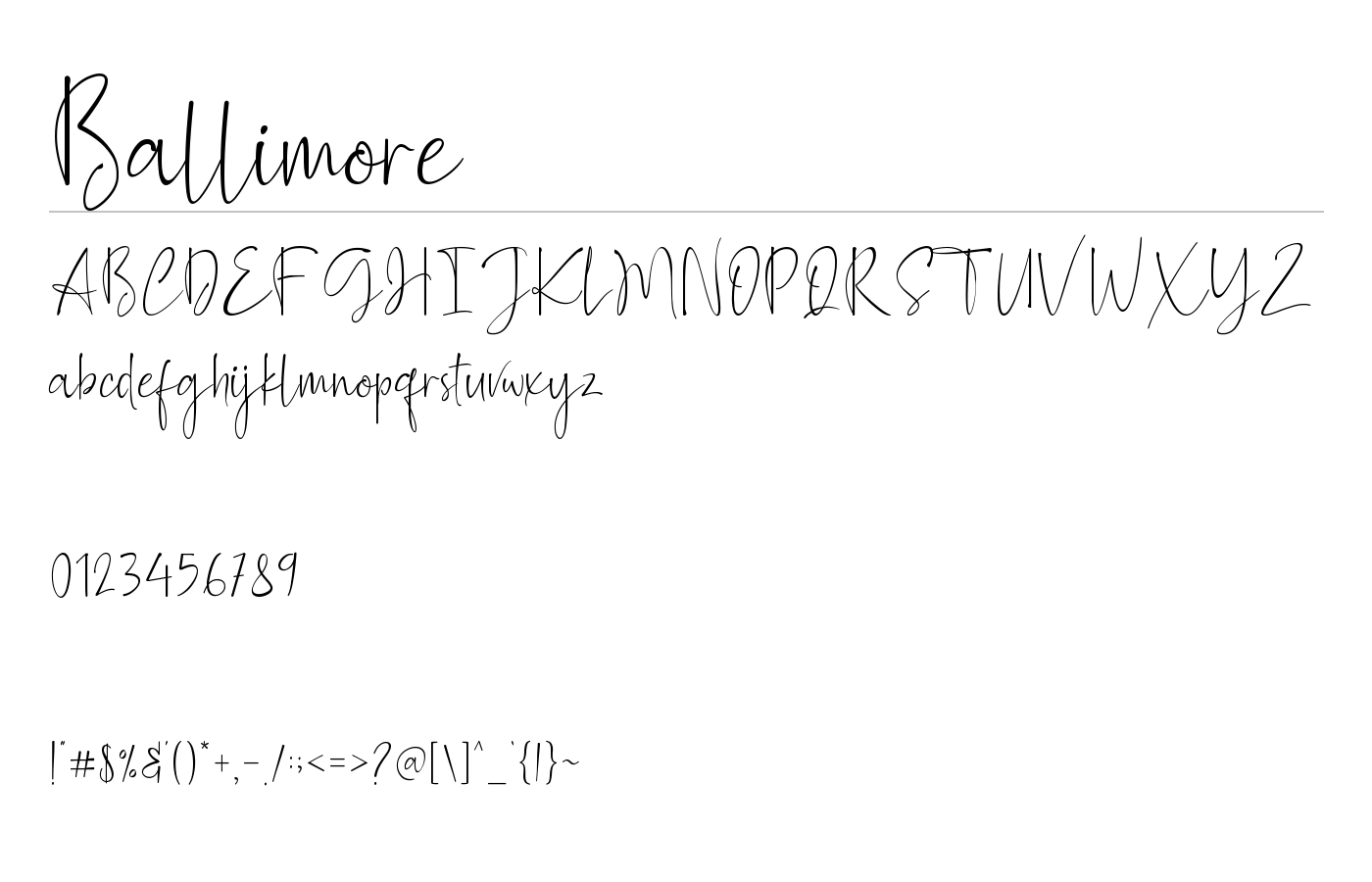
Ballimore is a delicate, handwritten script font featuring tall, slender letterforms with a playful and elegant touch. Its light weight and slightly quirky, organic strokes make it perfect for personal branding, invitations, or creative projects that seek a warm and approachable feel. This font works best for decorative text, logos, and headlines where a unique, artistic flair is desired.
Ballimore Font
About Ballimore Font
| Font family | Ballimore Font |
| Designer | (MJB Letters). 2019. (Muhammad Mujibulloh) |